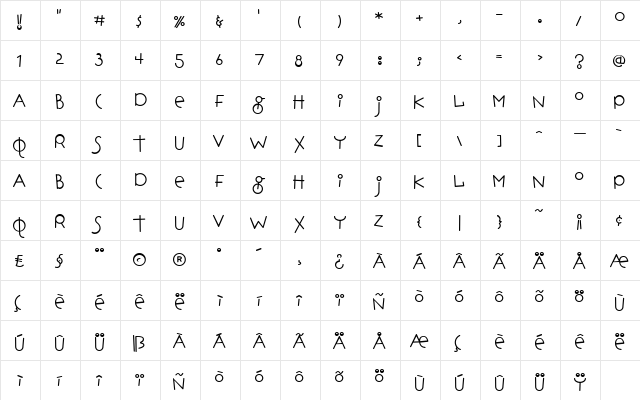
HopscotchPlain Regular Font Preview
HopscotchPlain Regular
HopscotchPlain Regular Font Details
Design Context for HopscotchPlain Typeface
HopscotchPlain is a composed and adaptable typeface that performs quietly and consistently across a wide range of design contexts.